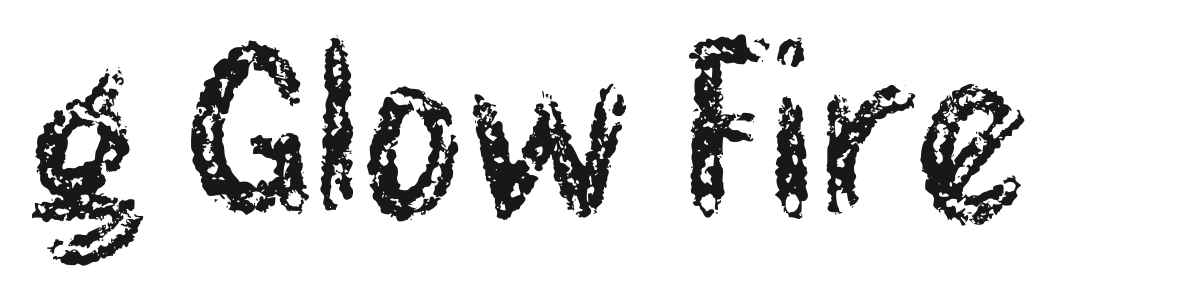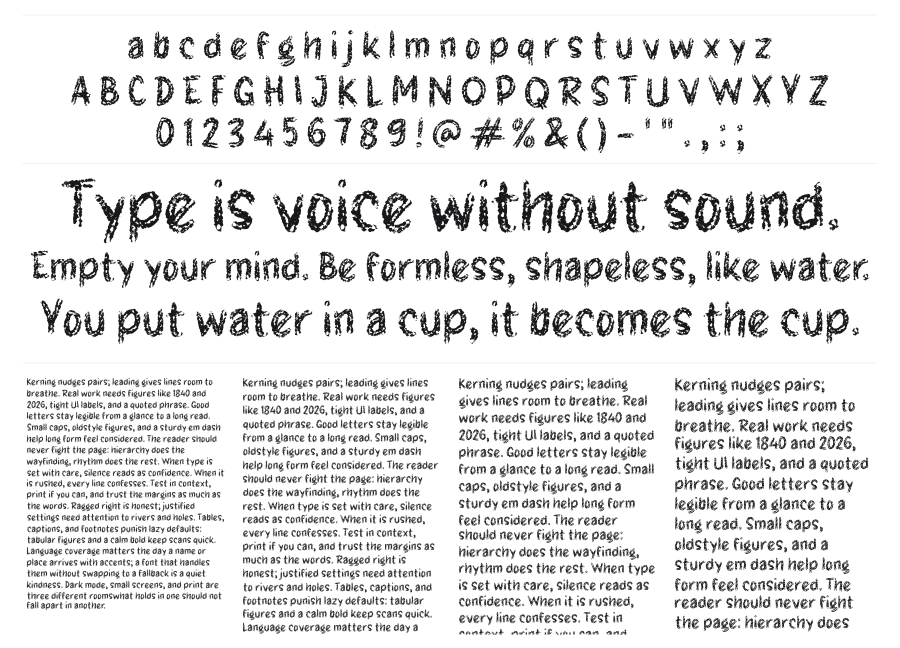
g Glow Fire
Glow Fire is a heavily eroded display font that looks like text pulled from scorched paper or charred wood. The distress texture is dense and consistent, fragmenting every stroke into an irregular, gritty surface. Best used large, where the texture reads as atmosphere rather than noise.